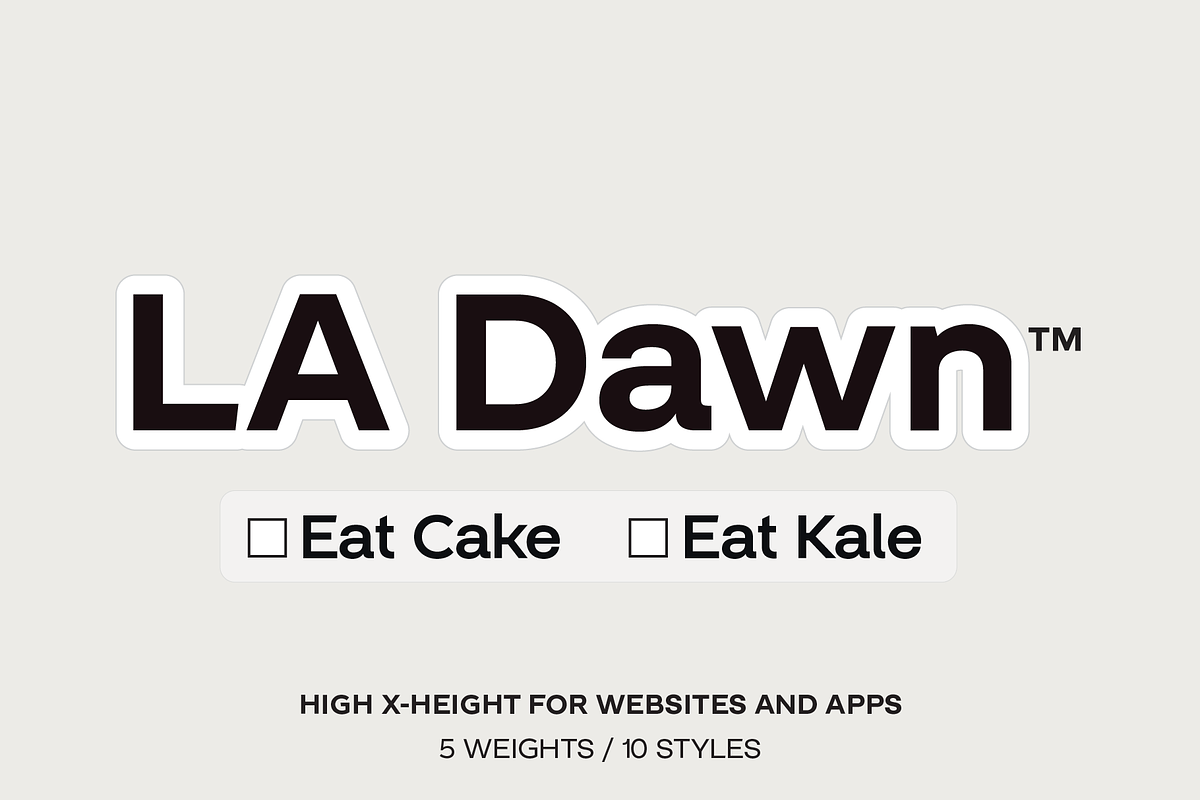
LA Dawn Font Free Download is a sleek and stylish display typeface inspired by the laid-back glamour of Los Angeles mornings. With its clean lines, soft curves, and modern aesthetic, this font is perfect for fashion branding, lifestyle blogs, magazine headers, product packaging, and minimalist social media content.
Designed to exude both elegance and approachability, LA Dawn Font Free Download blends contemporary sophistication with a breezy West Coast vibe. It's ideal for high-contrast titles, logo designs, and editorial layouts that demand both personality and polish.